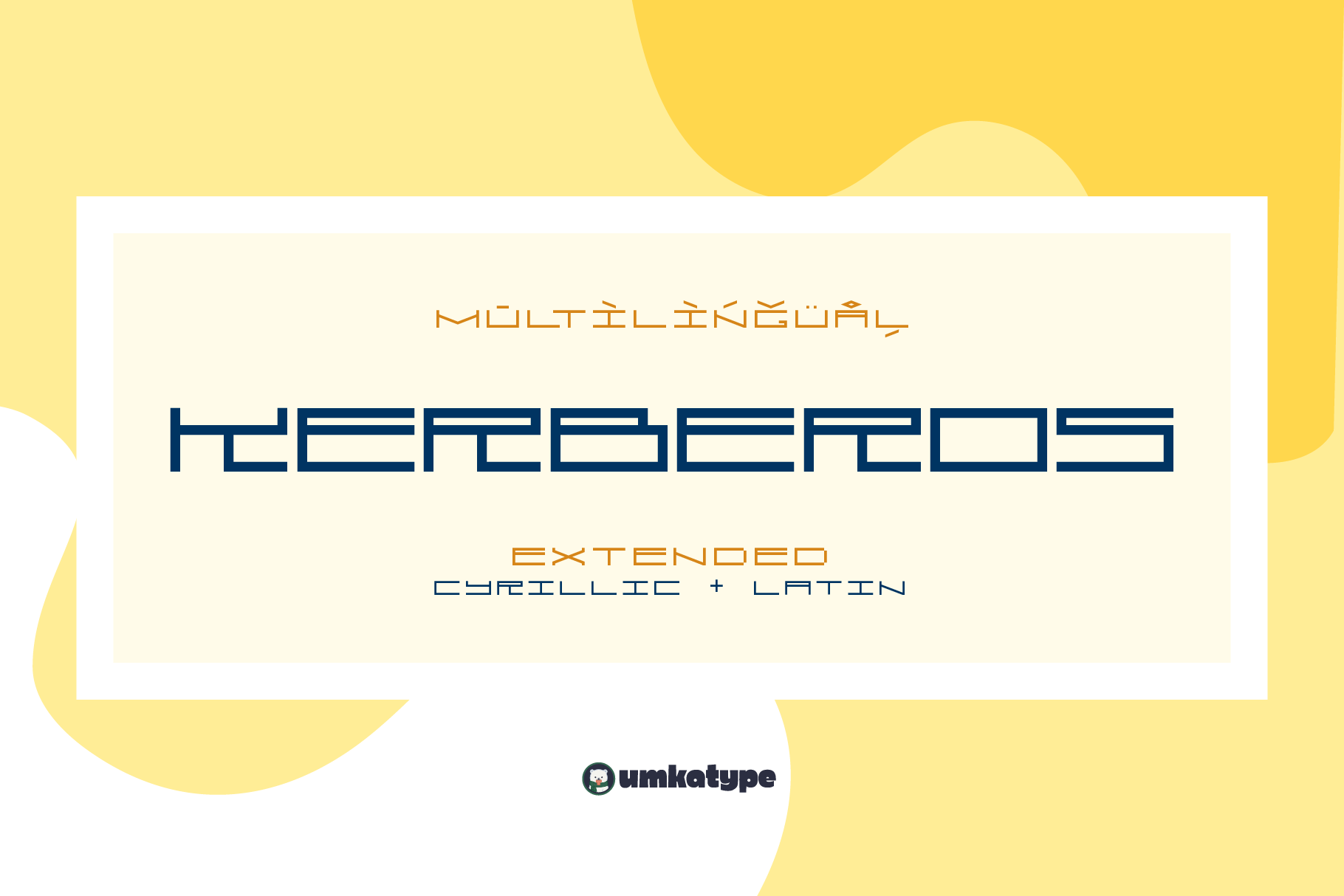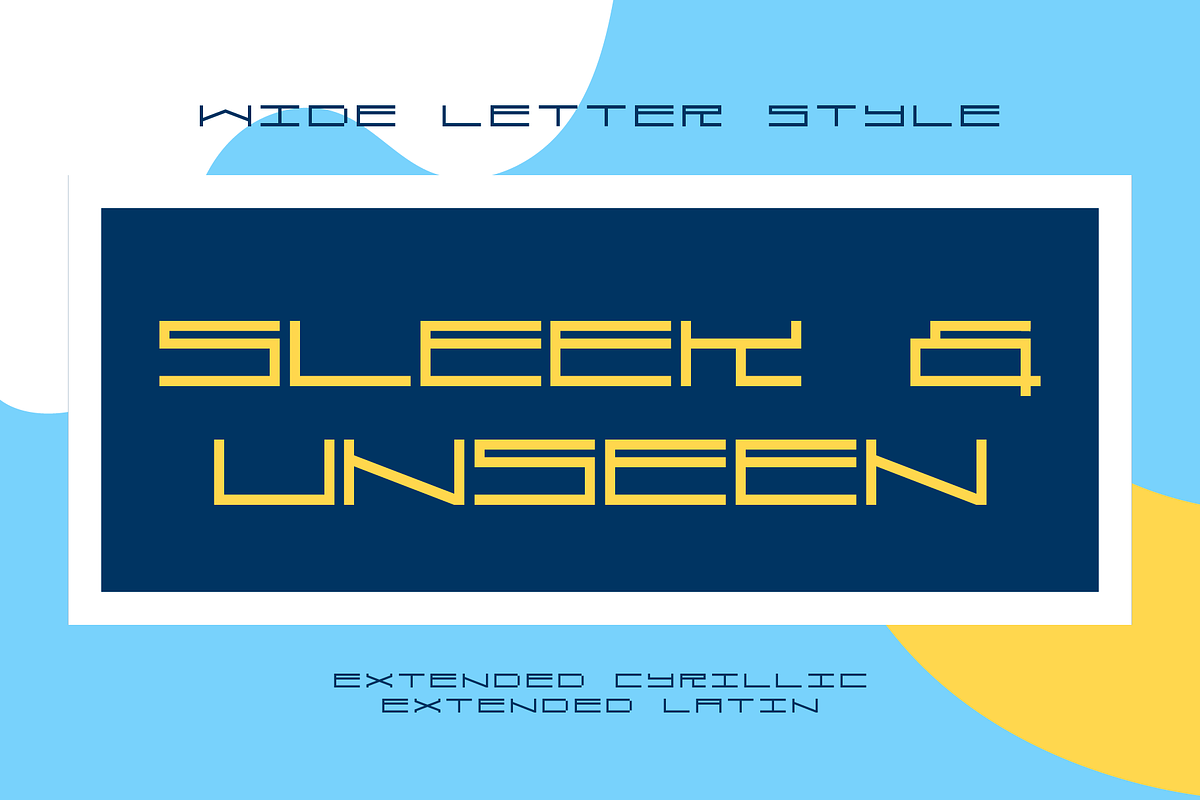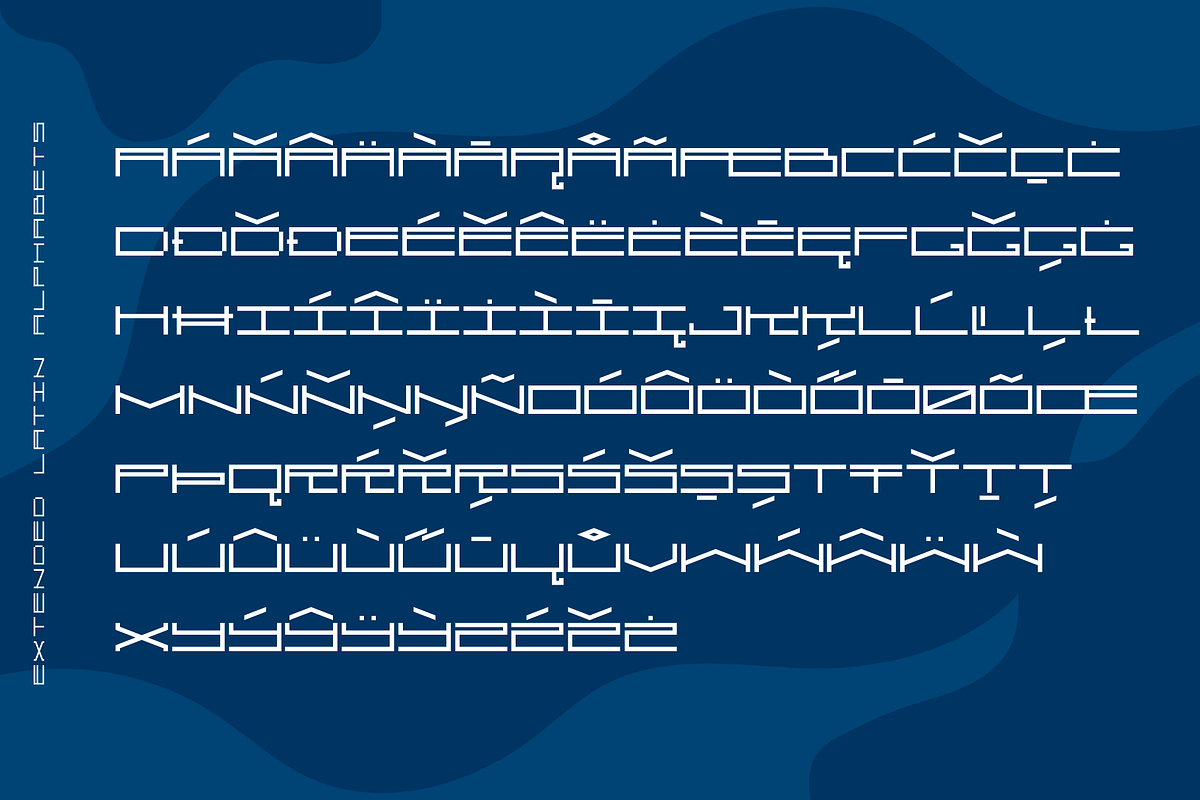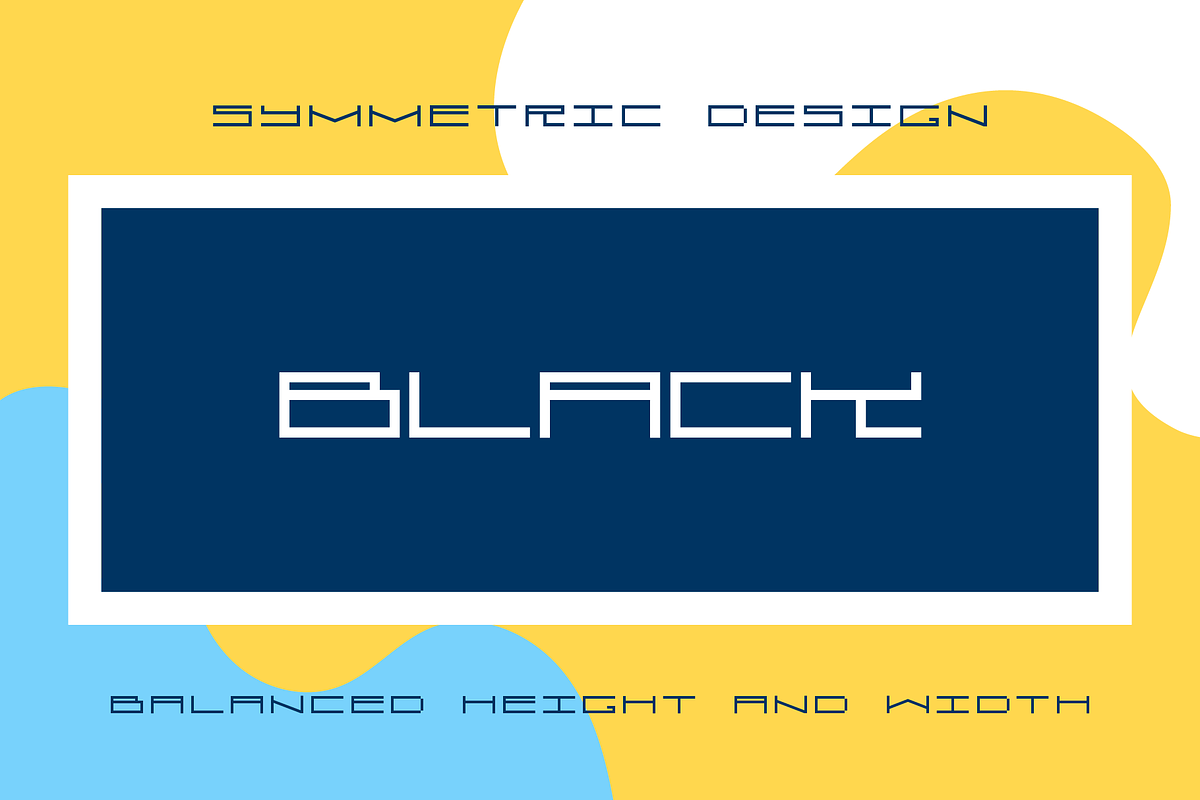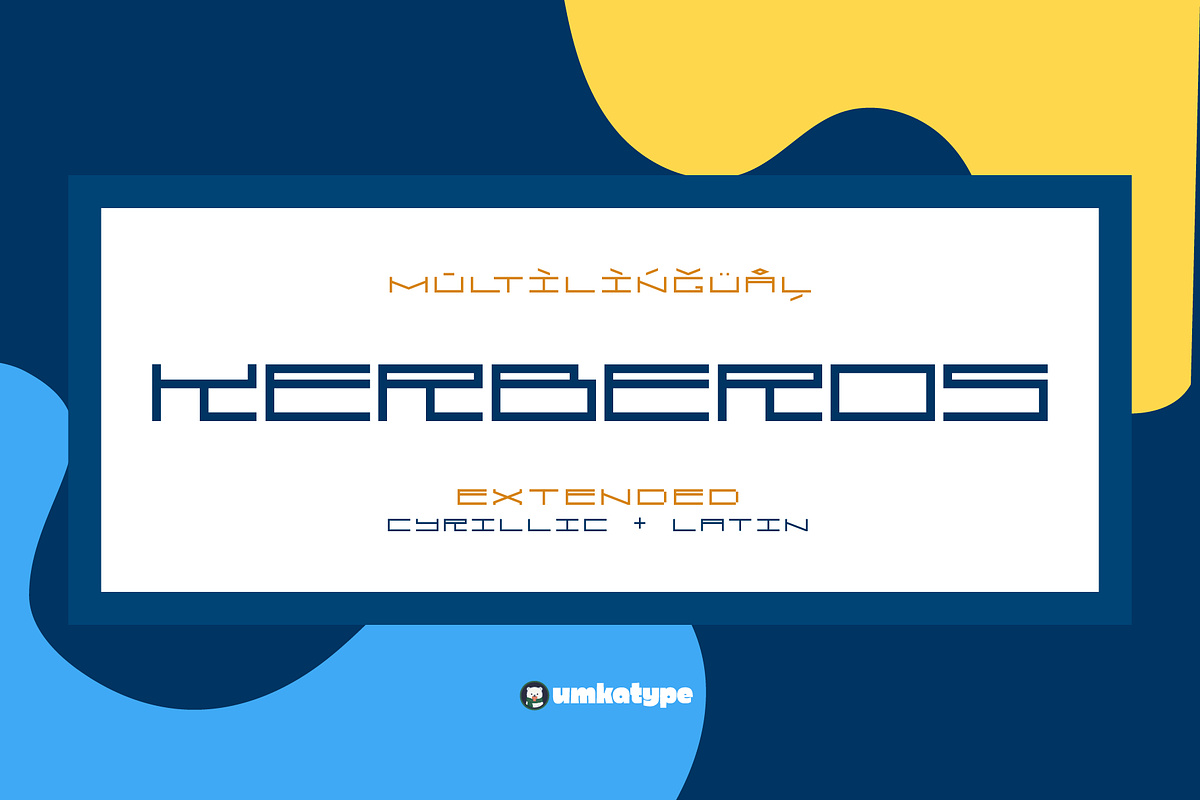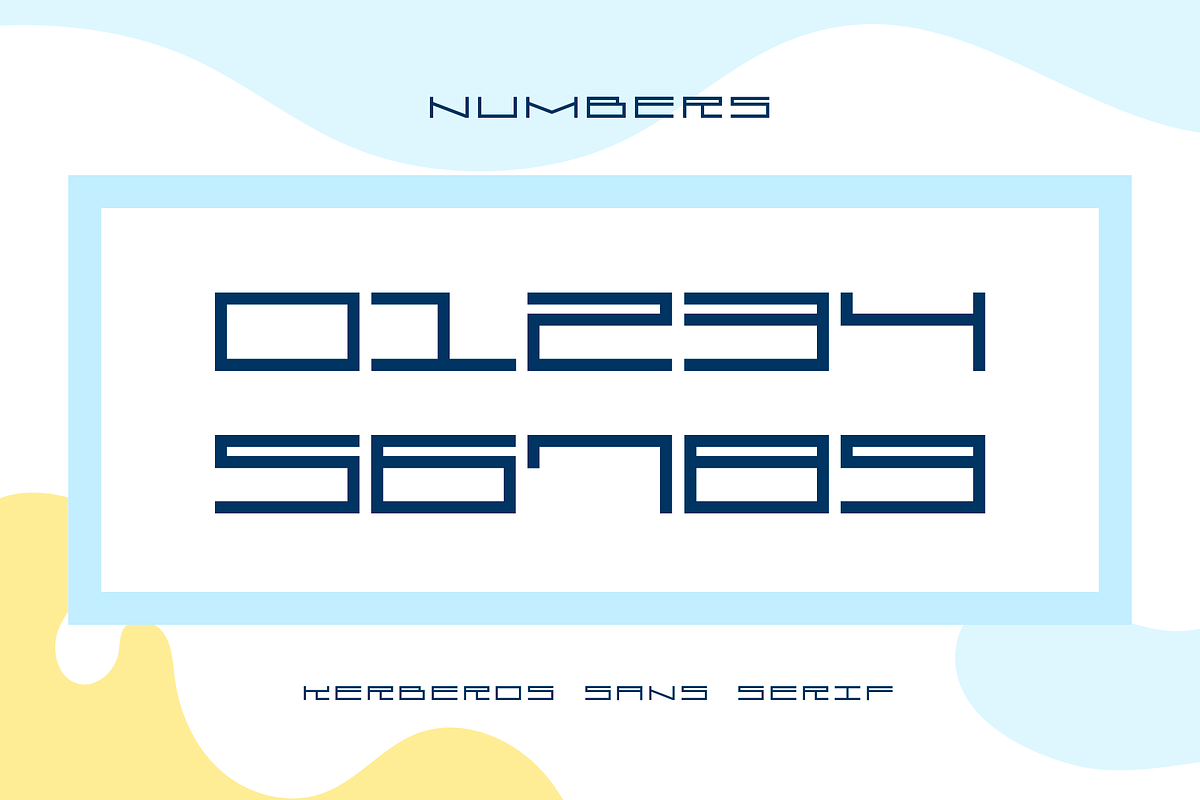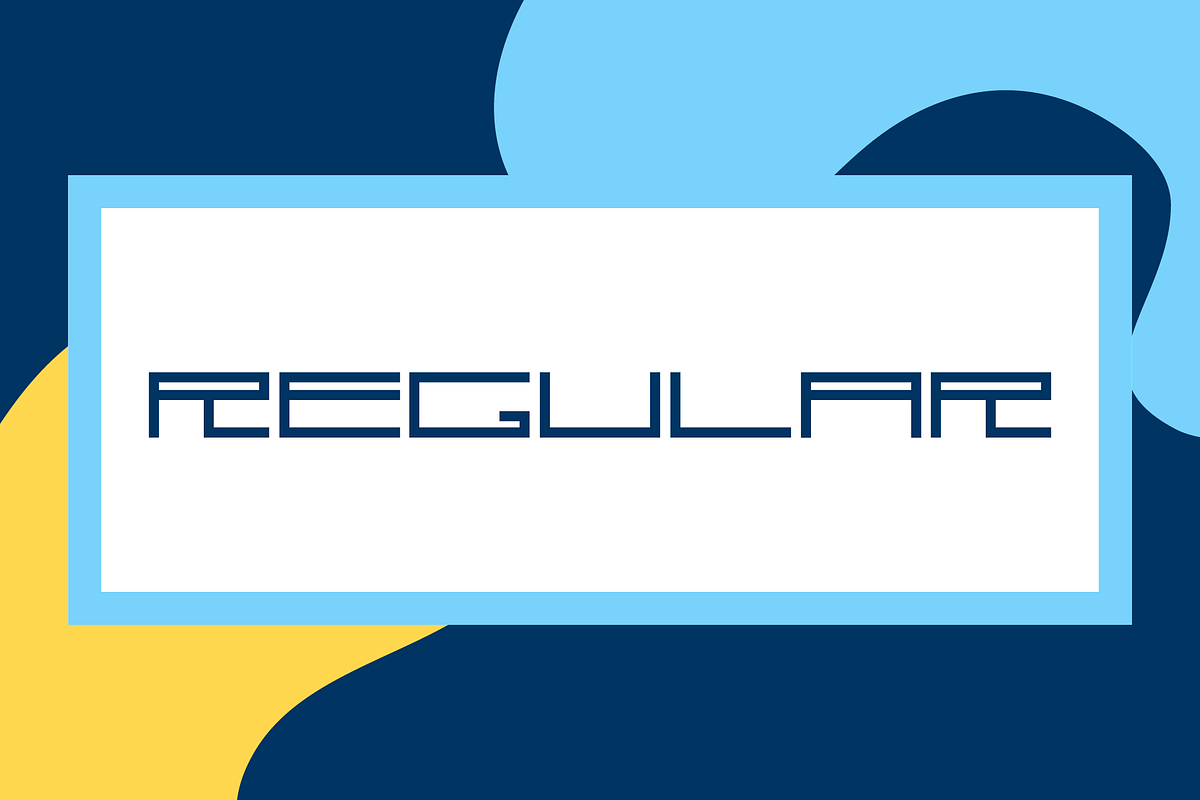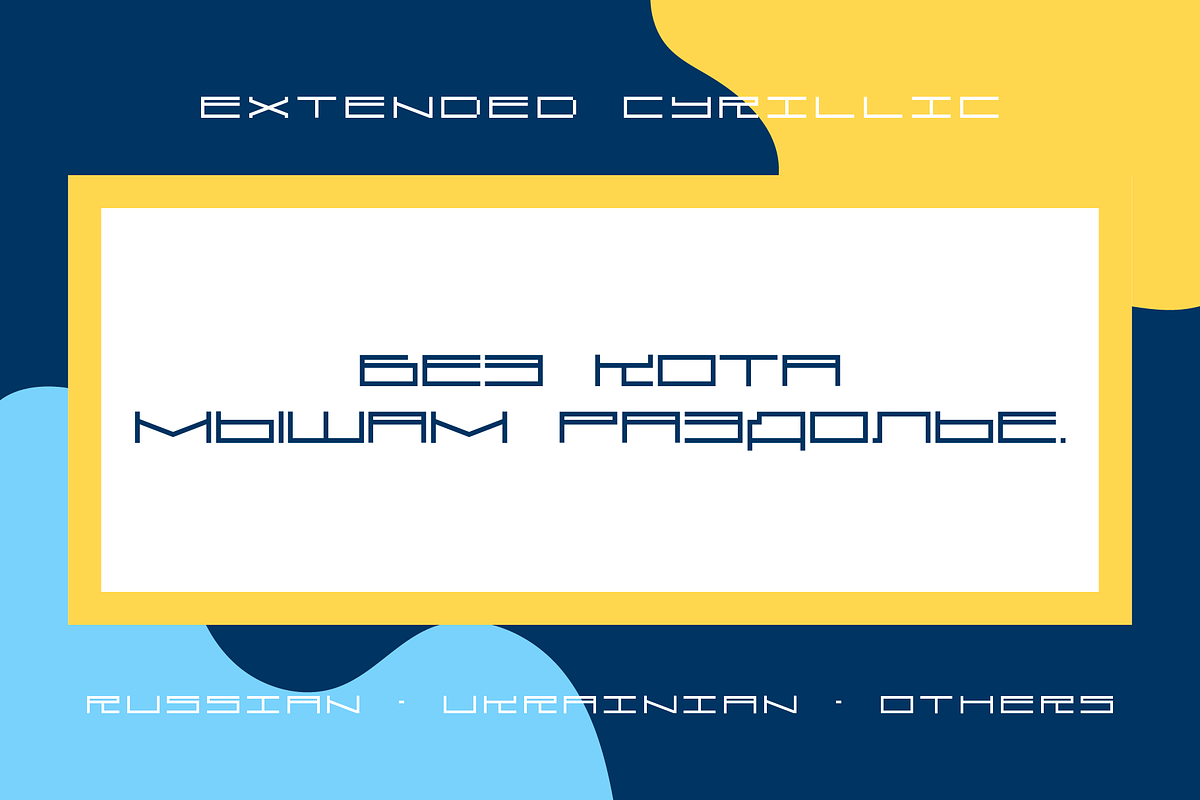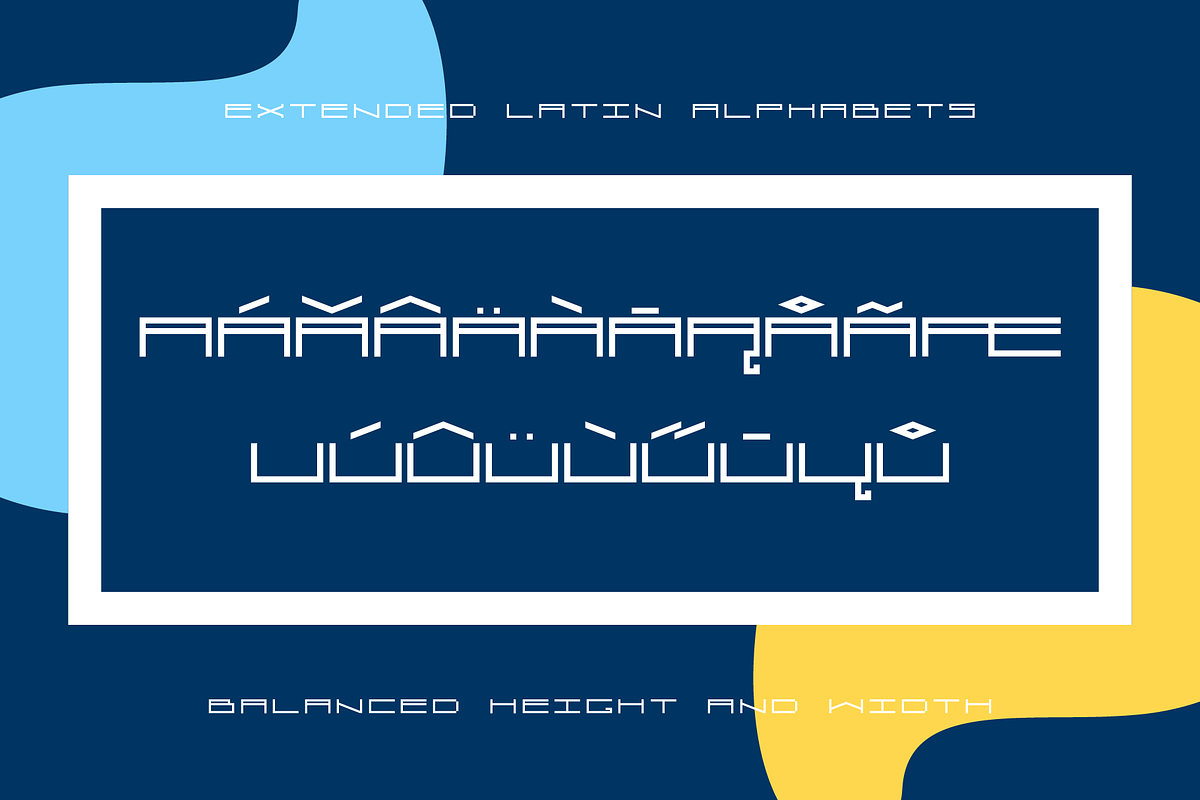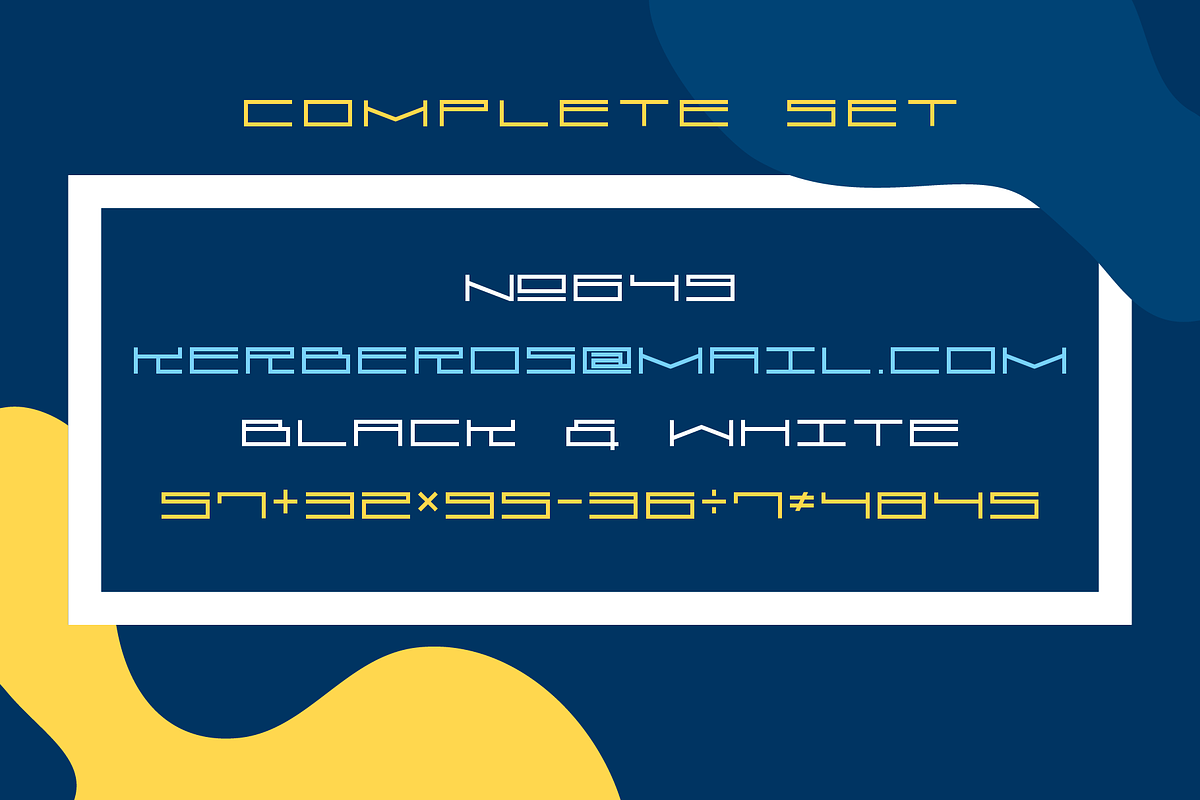
Kerberos Display Font
Kerberos - Display Font
- Kerberos is a carefully crafted display font.
- Multilingual: It has Extended LATIN and Extended CYRILLIC letters.
Kerberos created for titles, poster design, web design, branding and packaging works, illustrations, badges and other typography works.